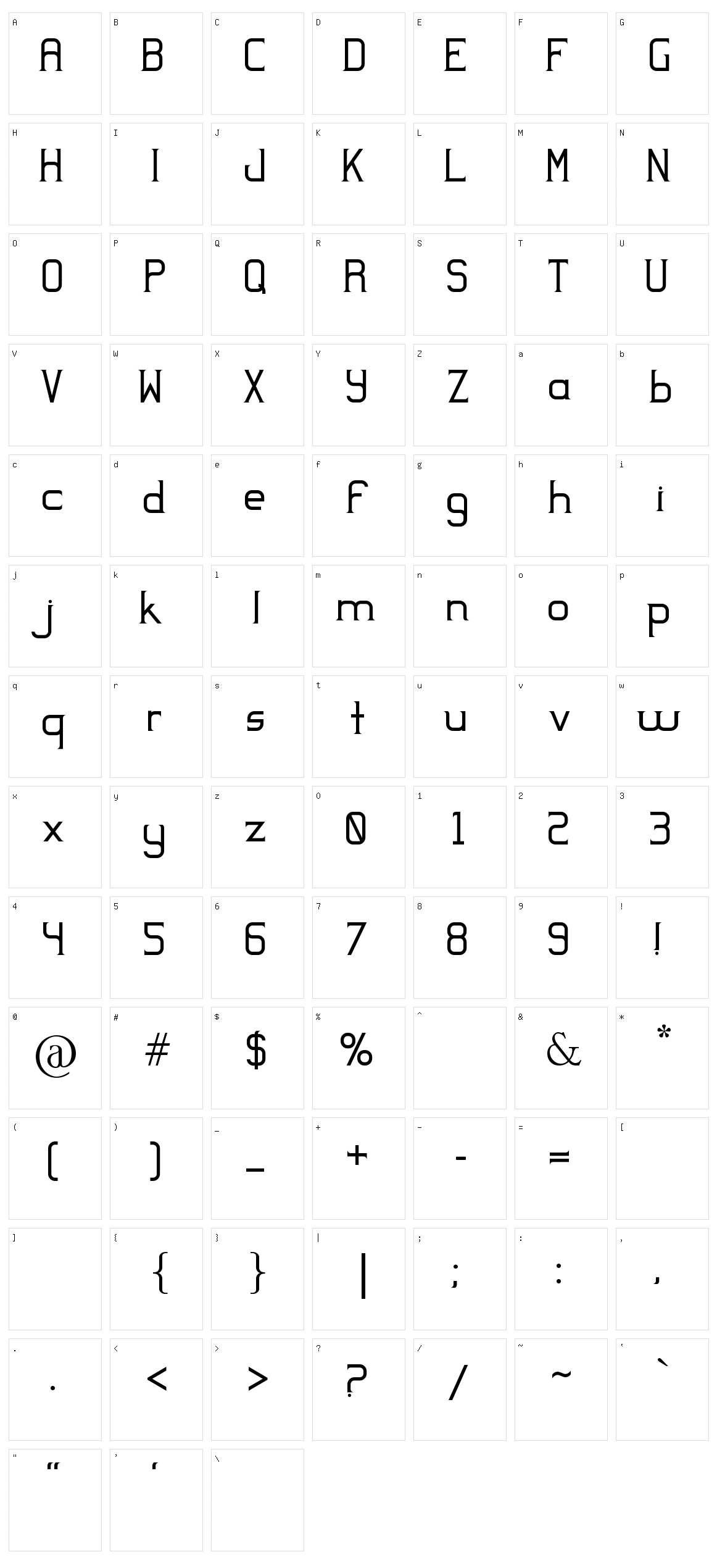
The free font Yodeb is carefully designed by Jorge Bedoy, showcasing a thoughtful balance of creativity and usability and falls under the Serif font style. When you download the ZIP file, it contains only 16.82 KB of font files, making it lightweight and quick to download. Please review the license details below to understand permitted usage and distribution rights. If license information is not available, we recommend using this font for personal projects only or contacting the author directly for commercial usage permissions.